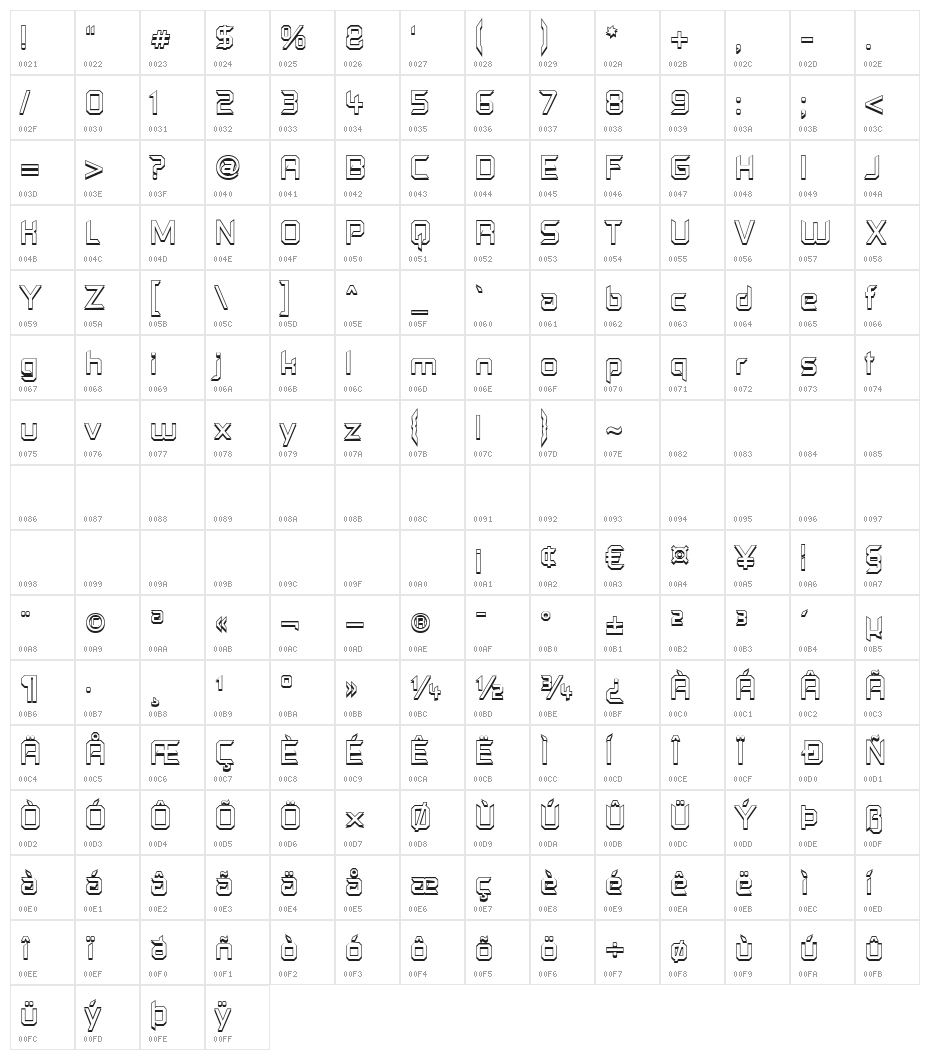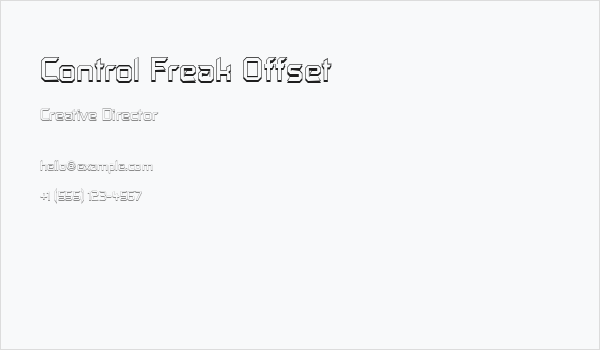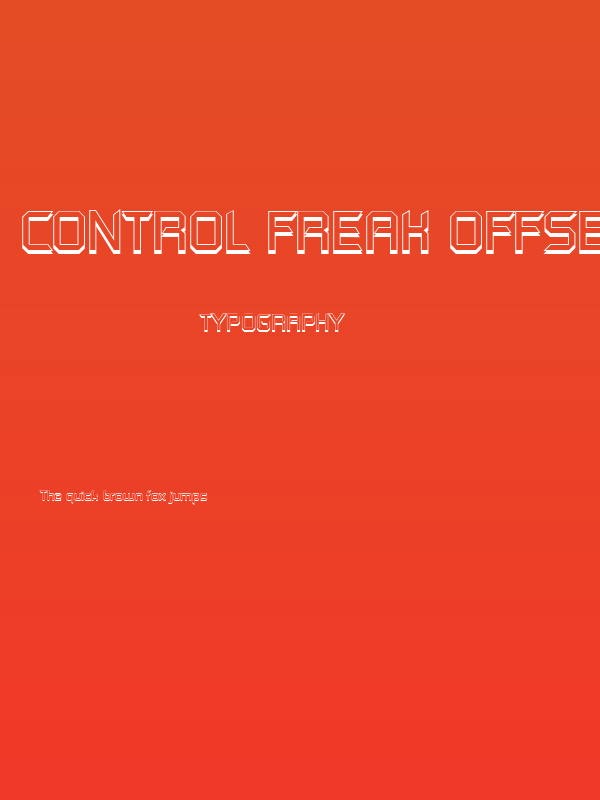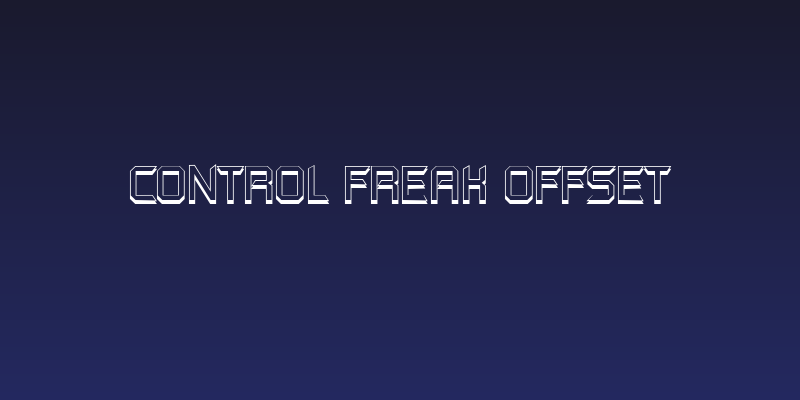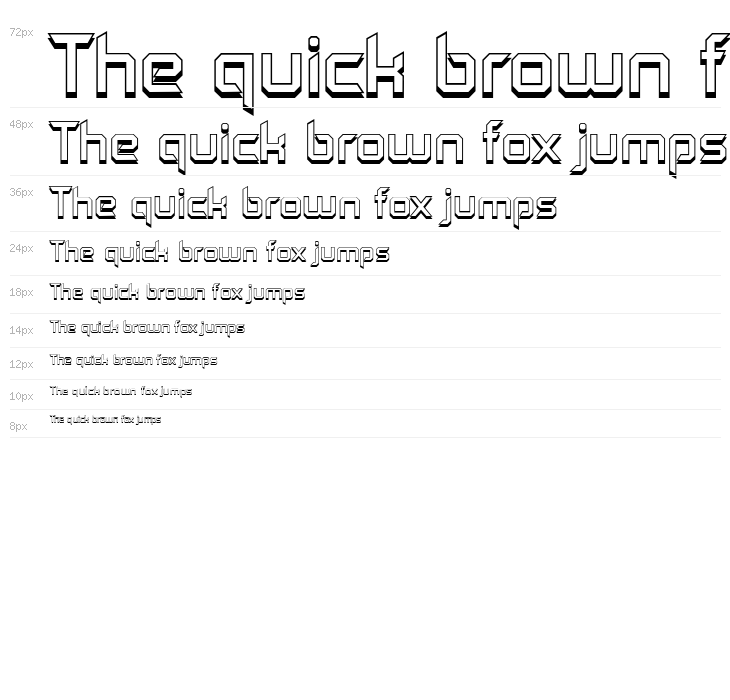
Control Freak Offset Font
Control Freak Offset Description
This font features a bold, geometric design with a three-dimensional effect, giving it a striking and modern appearance. The characters are outlined with a shadow-like offset, creating a sense of depth and movement. The uppercase and lowercase letters maintain a consistent style, with sharp angles and clean lines. Numbers and special characters are designed to match the overall aesthetic, ensuring uniformity across all elements. The font's unique style makes it ideal for projects that require a futuristic or tech-inspired look.
Proposed ProjectsPerfect for tech branding, video game titles, futuristic posters, and digital artwork.